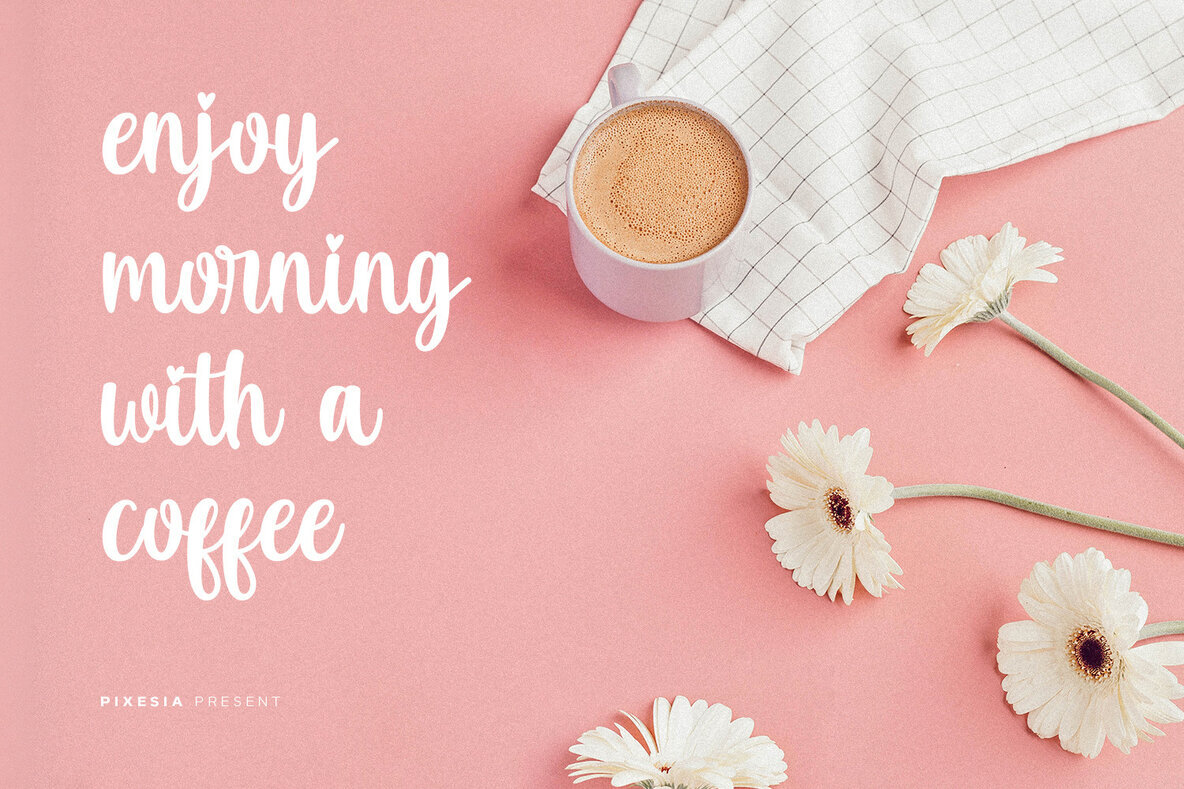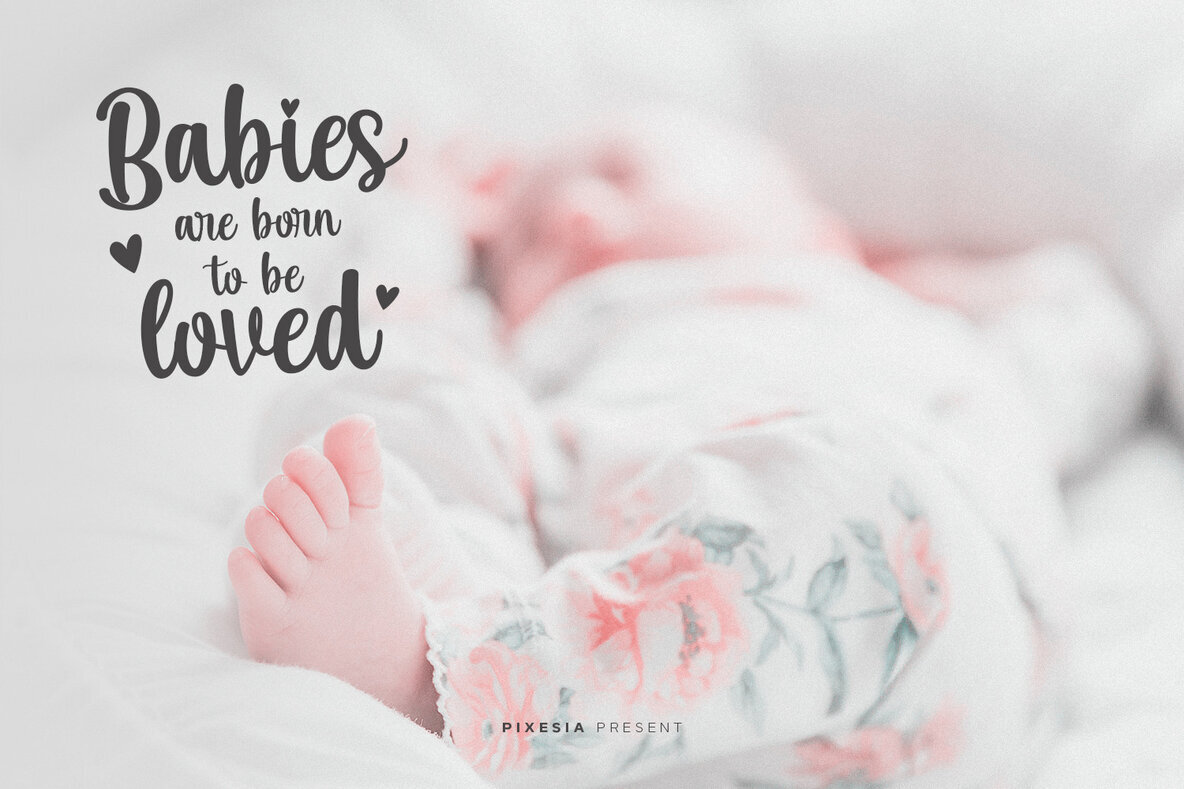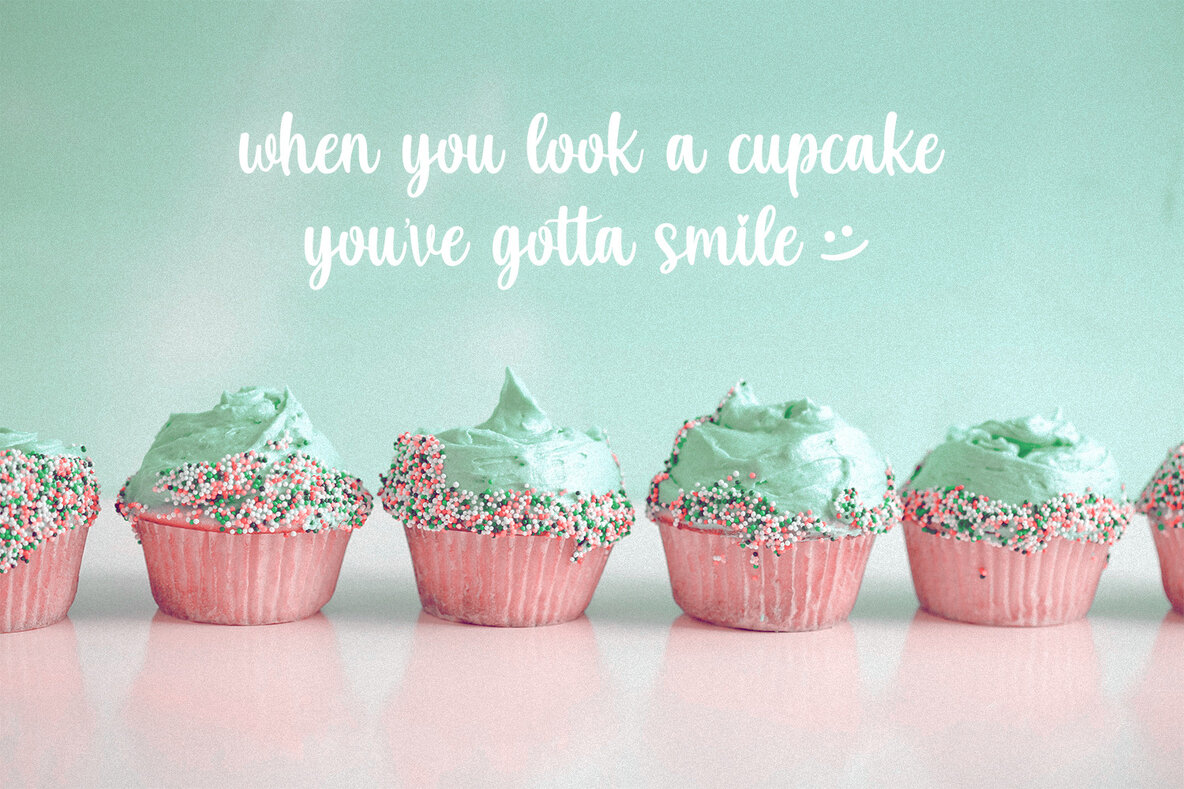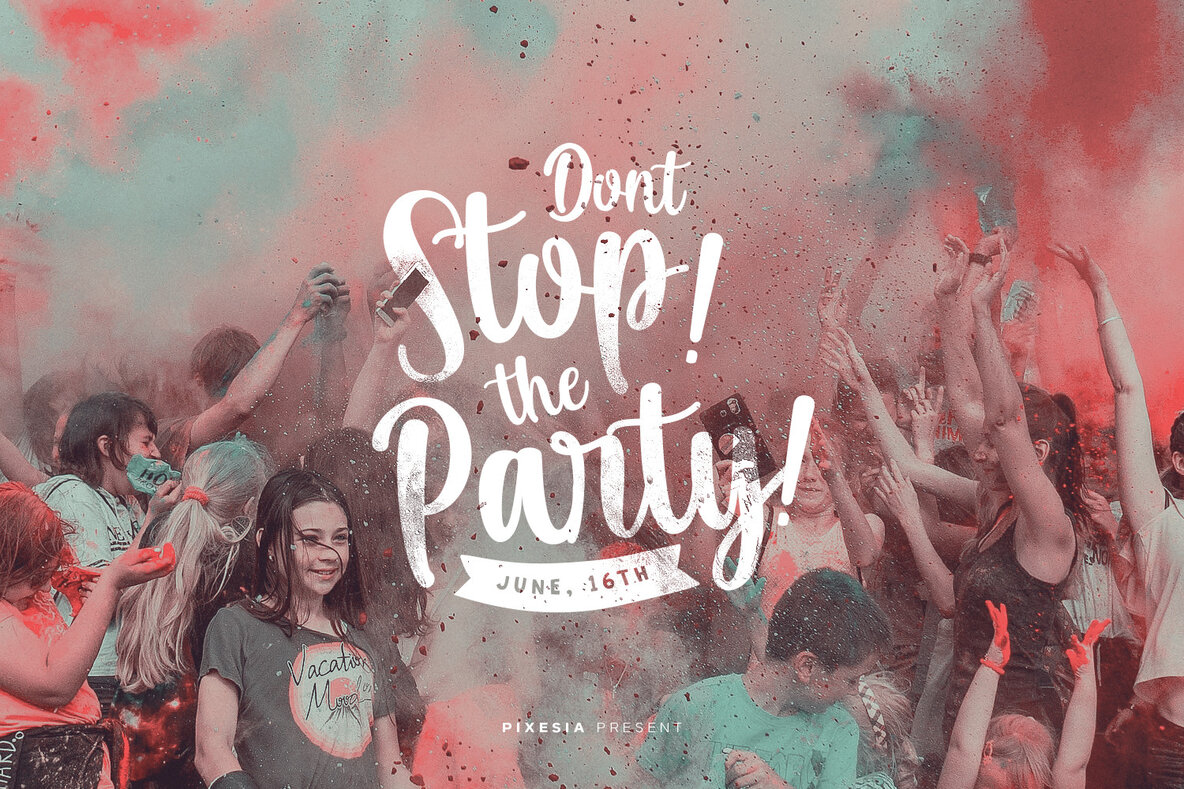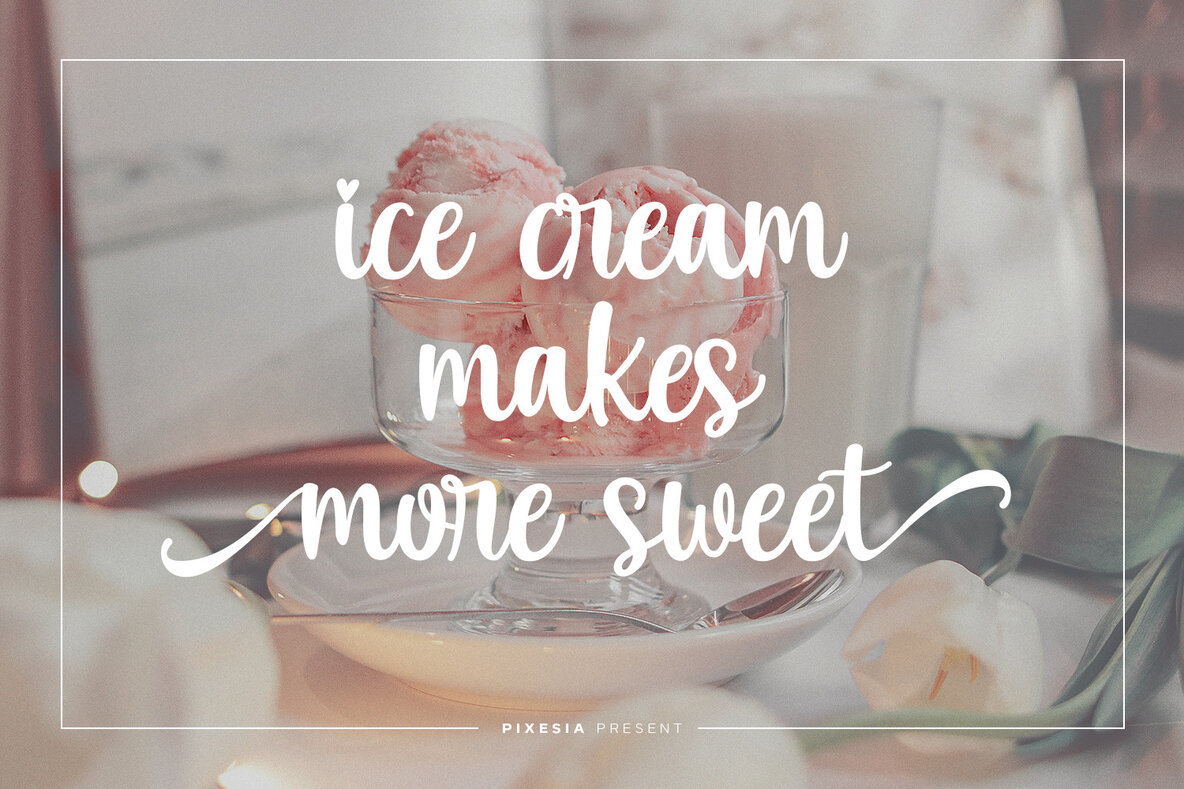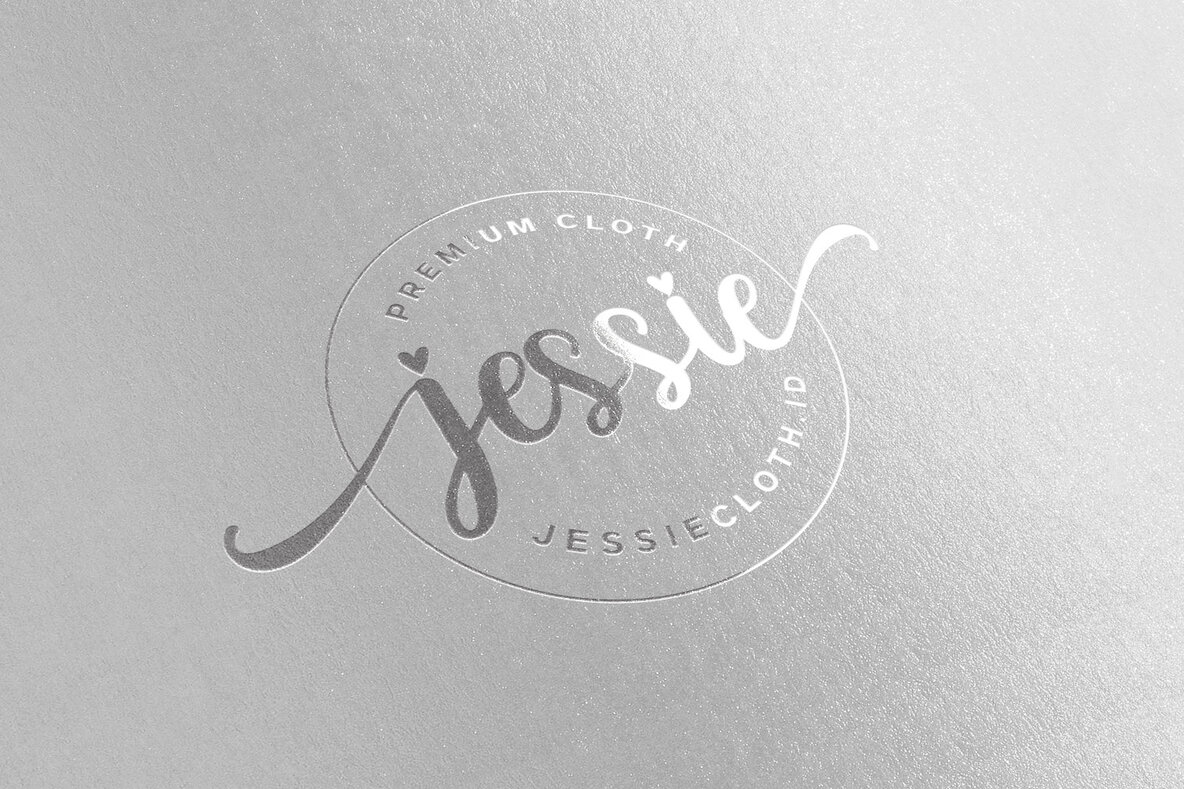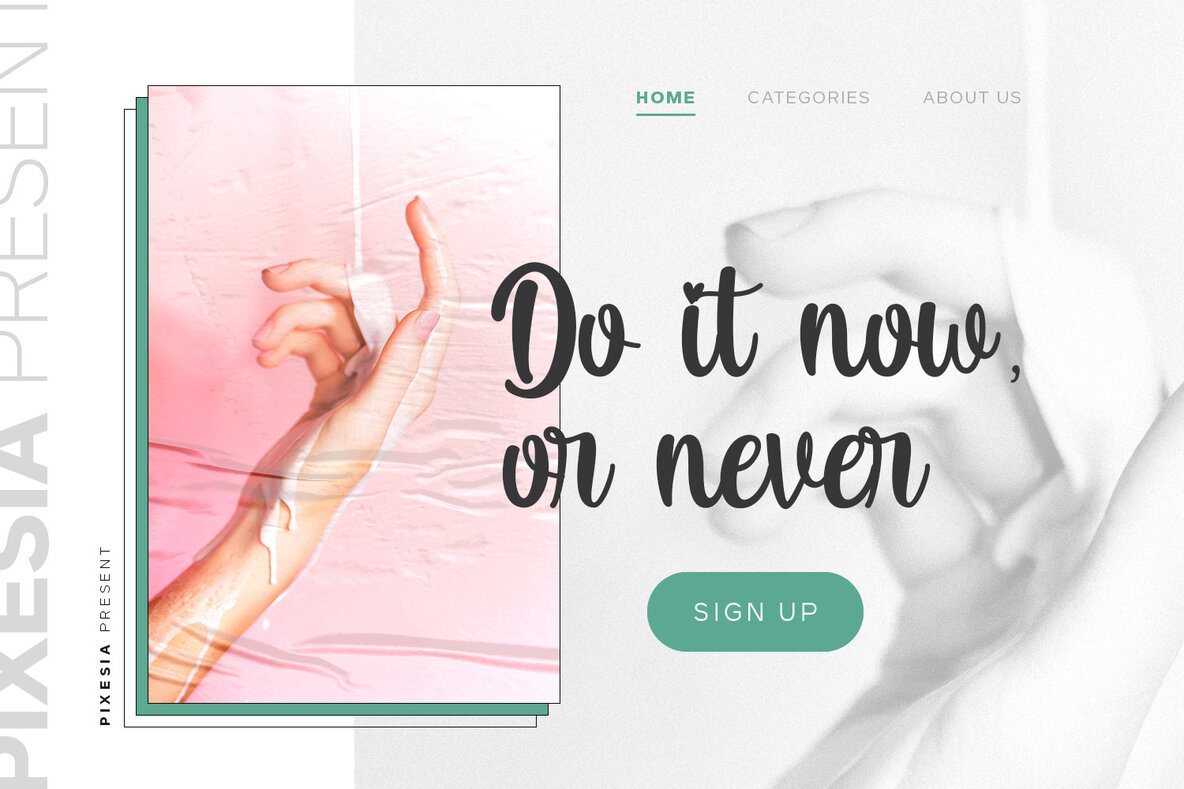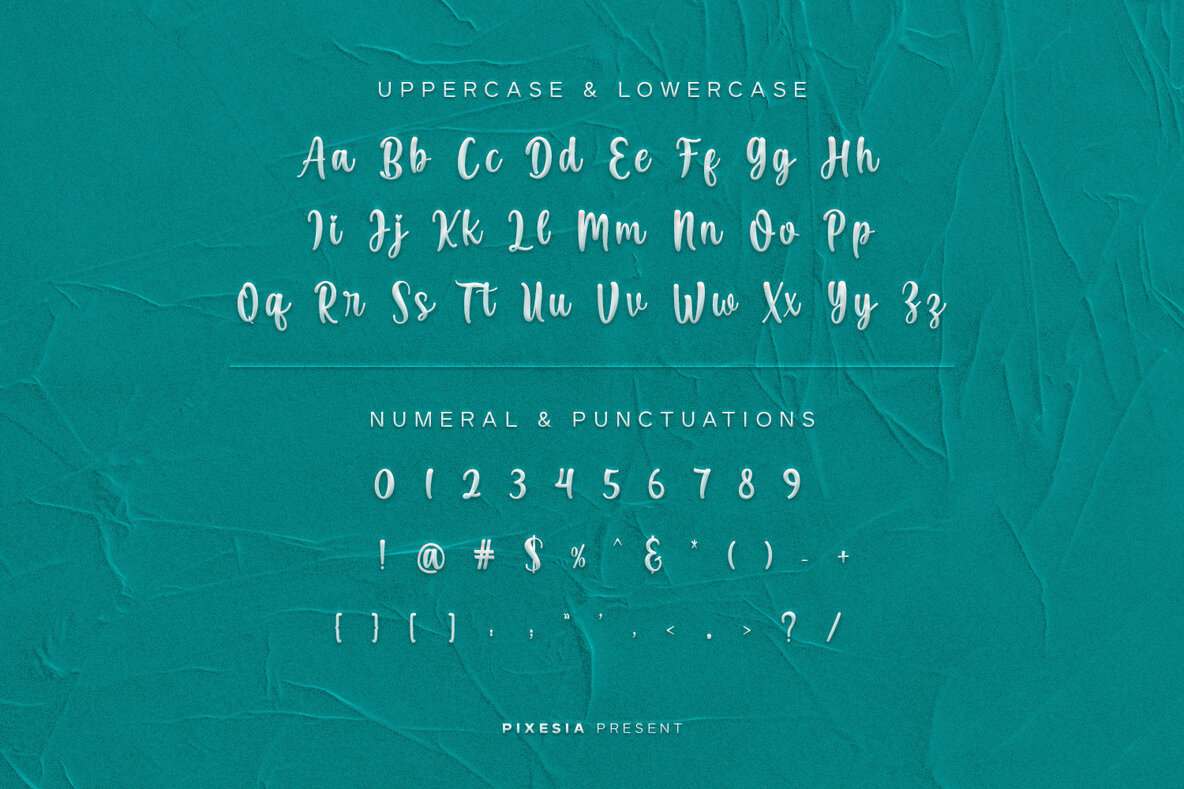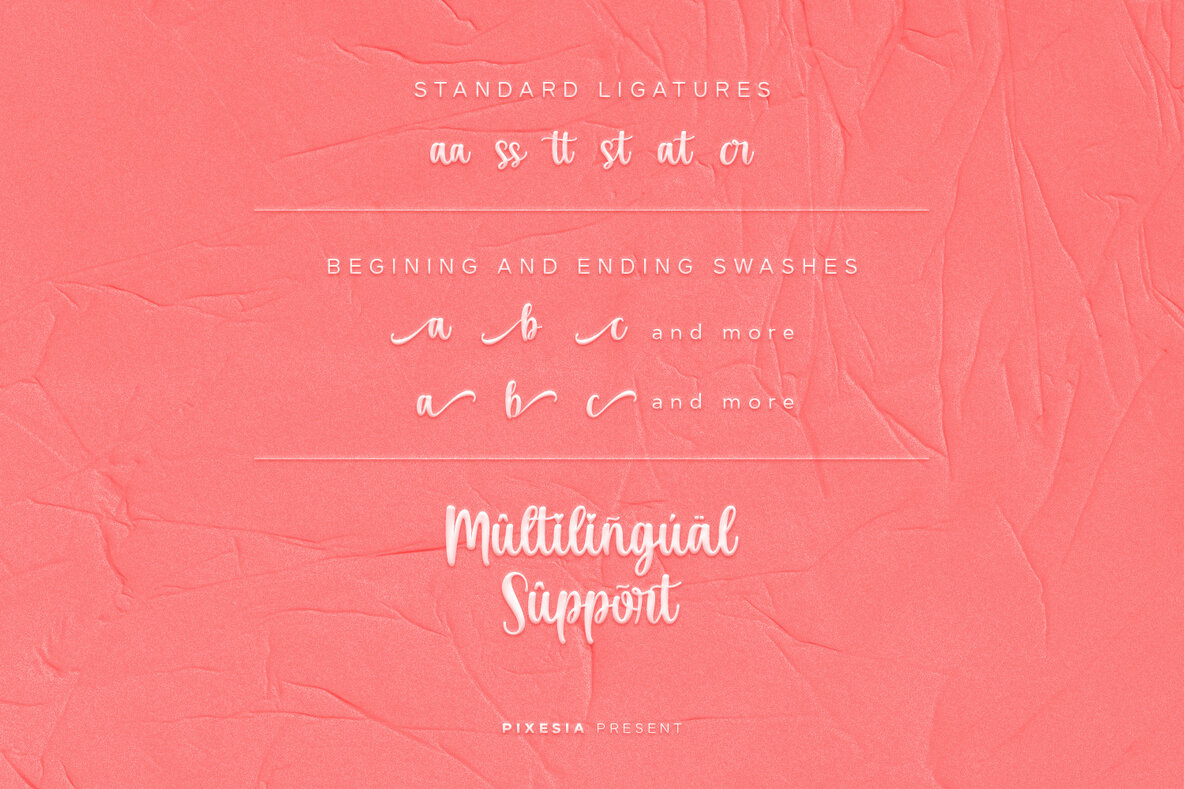
Sweet Dating Font
Sweet Dating
Sweet Dating brings an air of sophistication to any project with its refined handwritten style. An excellent choice for those seeking a touch of luxury in their designs, this font offers seamless access to an array of glyphs and ligatures, thanks to its PUA encoding. It seamlessly integrates with contemporary design projects, enhancing aesthetics with its delicate yet assertive strokes.Sweet Dating: Elegant Handwritten Luxury